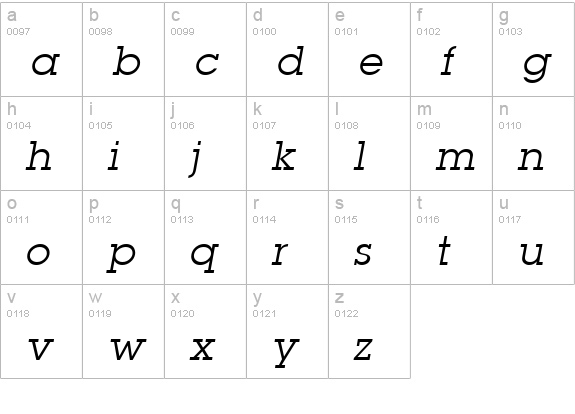
TR McLean Italic Font Details
TR McLean Italic is a distinctive, italic variant in the TR typeface family \xE2\x80\x94 well suited to design and typography projects.
TR McLean Italic is a sleek and stylish font that exudes elegance and sophistication. Its delicate curves and subtle slant give it a modern and refined look, making it perfect for a wide range of design projects. Whether you're working on a logo, branding materials, or a creative layout, TR McLean Italic will add a touch of class to your work. This versatile font is ideal for both digital and print applications, thanks to its clean lines and legible design. The italicized style adds a dynamic flair to any text, making it stand out and capture attention. Whether you're looking to convey a sense of luxury, professionalism, or creativity, TR McLean Italic is the perfect choice. And the best part? TR McLean Italic is available for free download at FontsMarket.com. So you can add this elegant font to your collection without breaking the bank. Don't miss out on the opportunity to enhance your designs with the timeless appeal of TR McLean Italic. Download it today and take your projects to the next level!